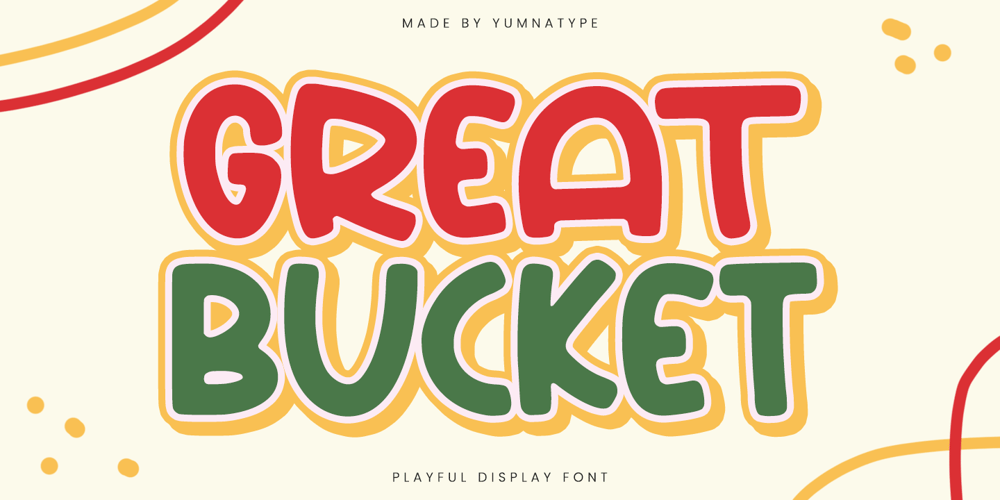
Great Bucket Font Family was designed by Donis Miftahudin and published by Yumna Type. Great Bucket contains 1 styles and family package options. Great Bucket is a delightful display font designed to bring a playful vibe to your design projects. The playful style of Great Bucket is evident in its whimsical letterforms appearance.. The thick weight of the font adds to its strong presence, ensuring your text captures attention and is easily readable.With its rounded shapes, Great Bucket maintains a soft look. The smooth curves of the letters create a harmonious design, contributing to the font’s playful character. The low contrast between the strokes of Great Bucket provides a consistent appearance. This uniformity enhances the legibility of the font while maintaining its playful essence. In addition, enjoy the features here.Features: Ligatures Multilingual Supports PUA Encoded Numerals and Punctuations Great Bucket fits in headlines, logos, posters, flyers, branding materials, print media, editorial layouts, and many more designs. Find out more ways to use this font by taking a look at the font preview.Thanks for purchasing our fonts. Hopefully, you have a great time using our font. Feel free to contact us anytime for further information or when you have trouble with the font. Thanks a lot and happy designing.